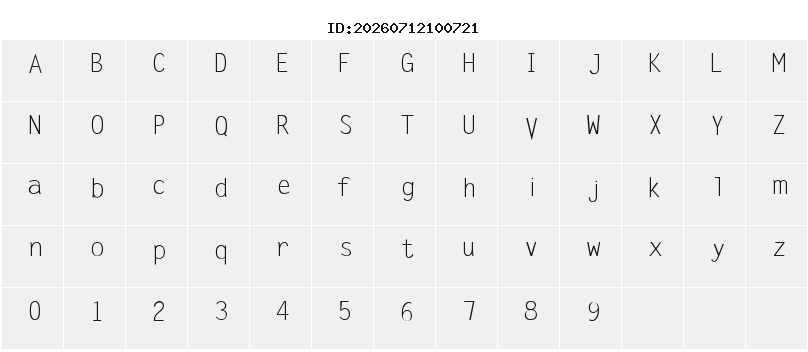
字体家AI造字望岳 Preview
• Font Name: 字体家AI造字望岳
• Full Font Name: 字体家AI造字望岳
• Description: 由AI生成的字体
About 字体家AI造字望岳.ttf
字体家AI造字望岳.ttf is a modern, elegant sans-serif font designed for ultimate readability and visual harmony. Perfect for branding, headlines, web design, and print materials.